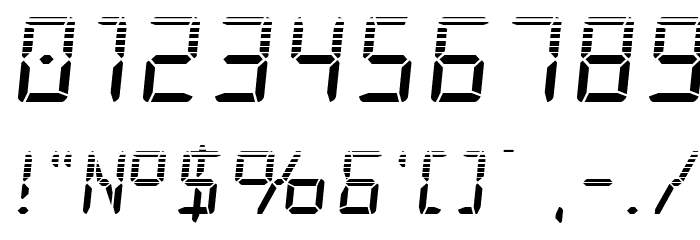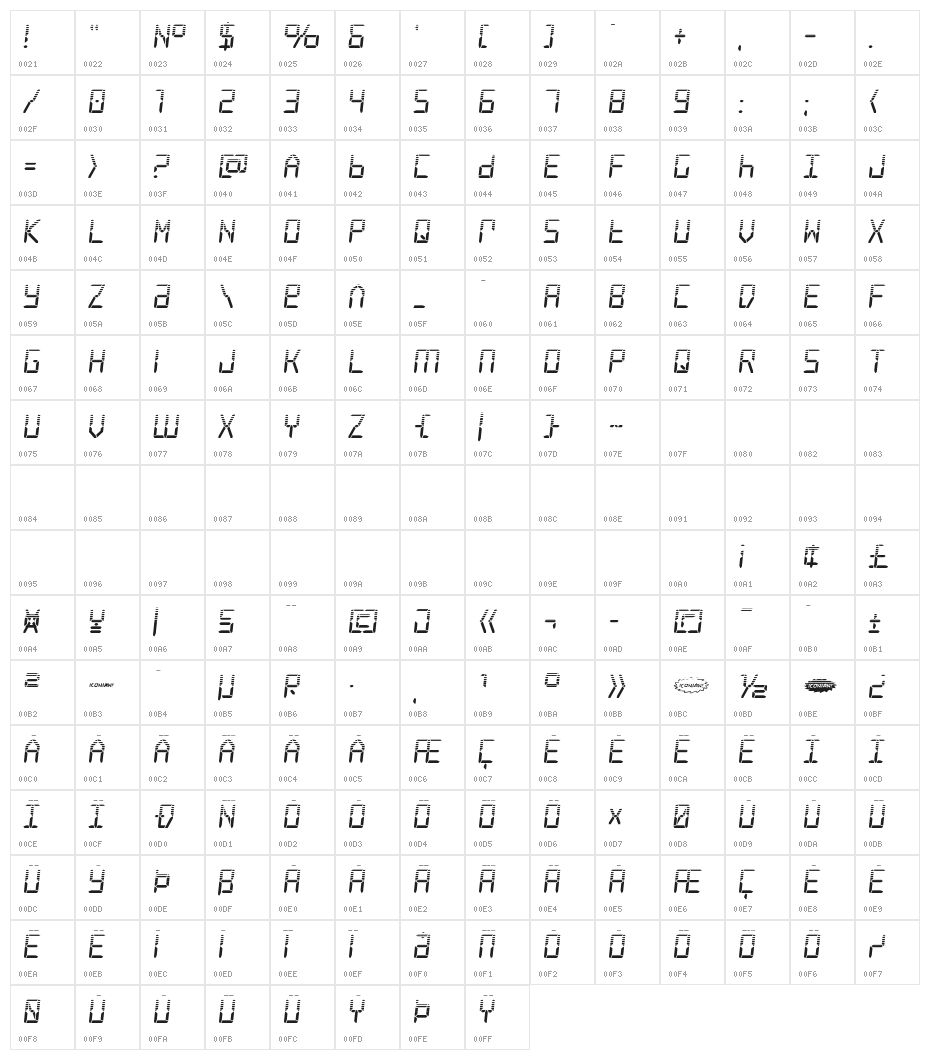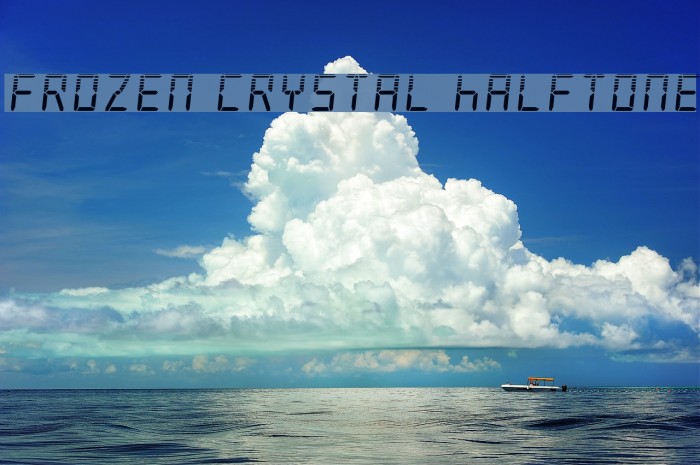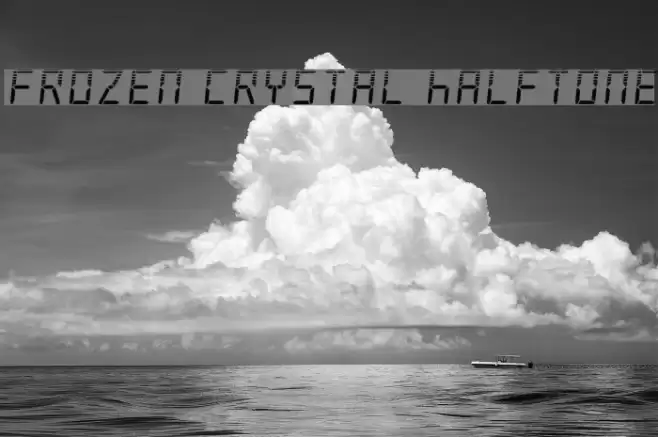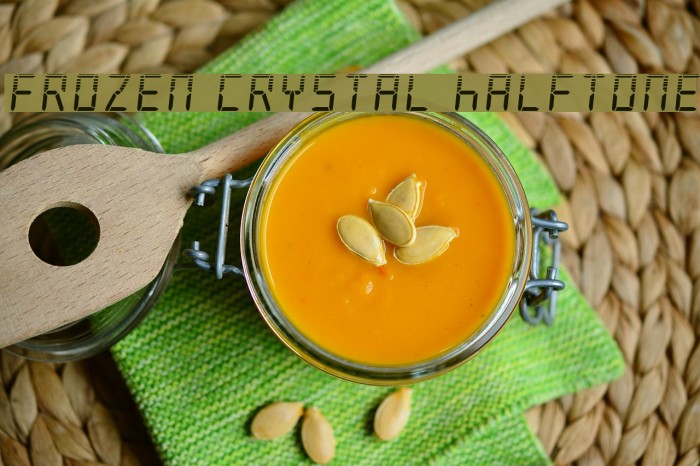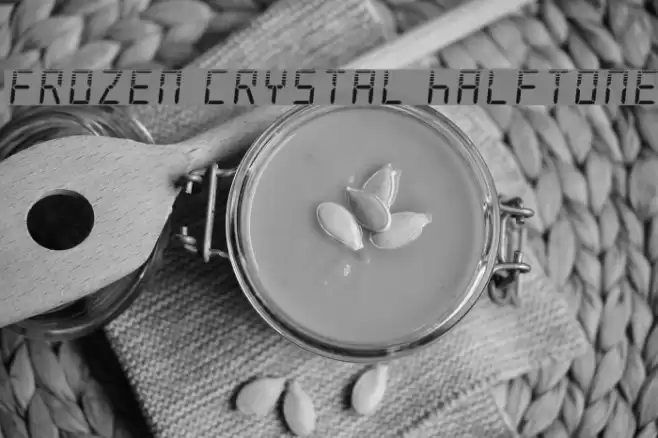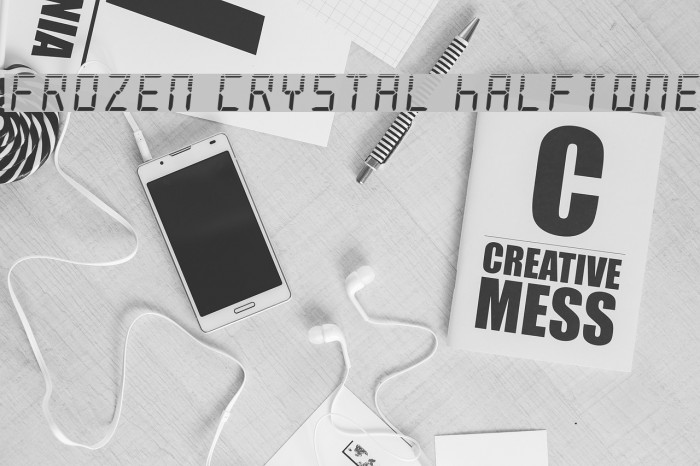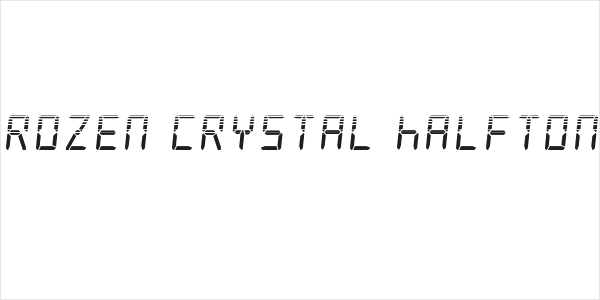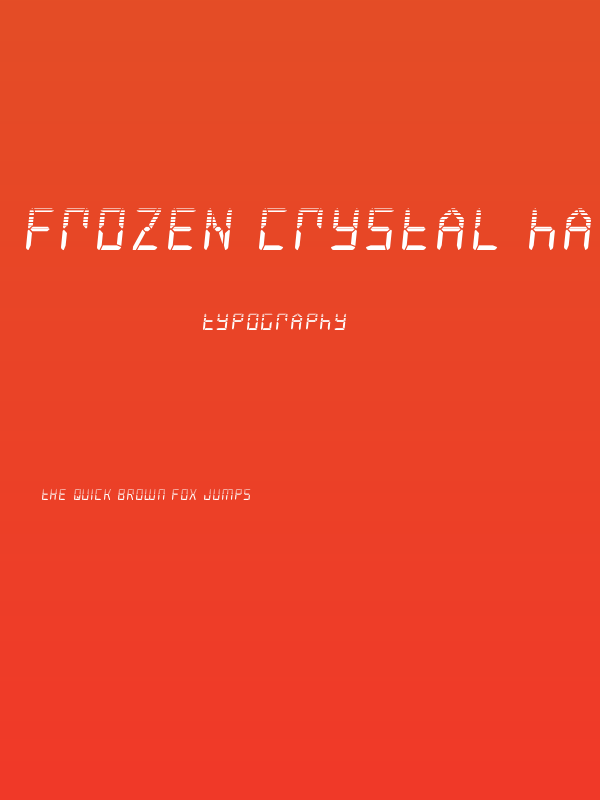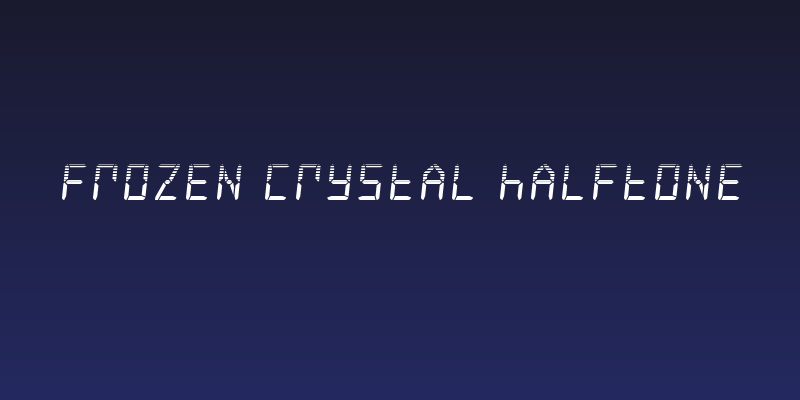
Frozen Crystal Halftone Font
Frozen Crystal Halftone Description
This font features a unique halftone design that gives each character a fragmented, crystalline appearance. The letters are constructed with a series of horizontal lines that create a sense of movement and depth. The geometric shapes are sharp and angular, contributing to a futuristic and digital aesthetic. The uppercase and lowercase letters maintain a consistent style, with the numerals and special characters following the same design principles. This font is visually striking and ideal for projects that require a modern and edgy look.
| Proposed Projects | Ideal for digital art, tech branding, futuristic posters, and video game graphics. |